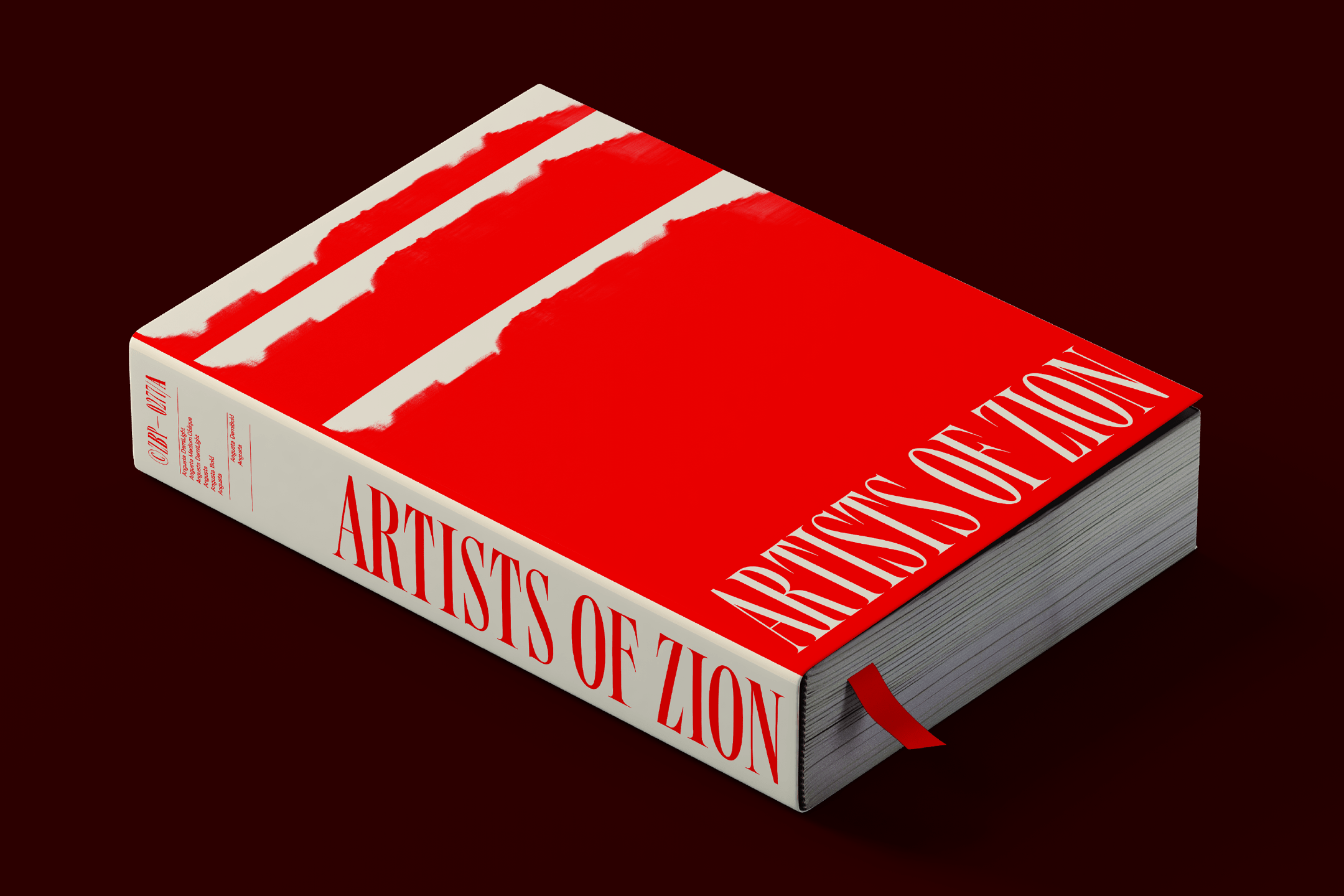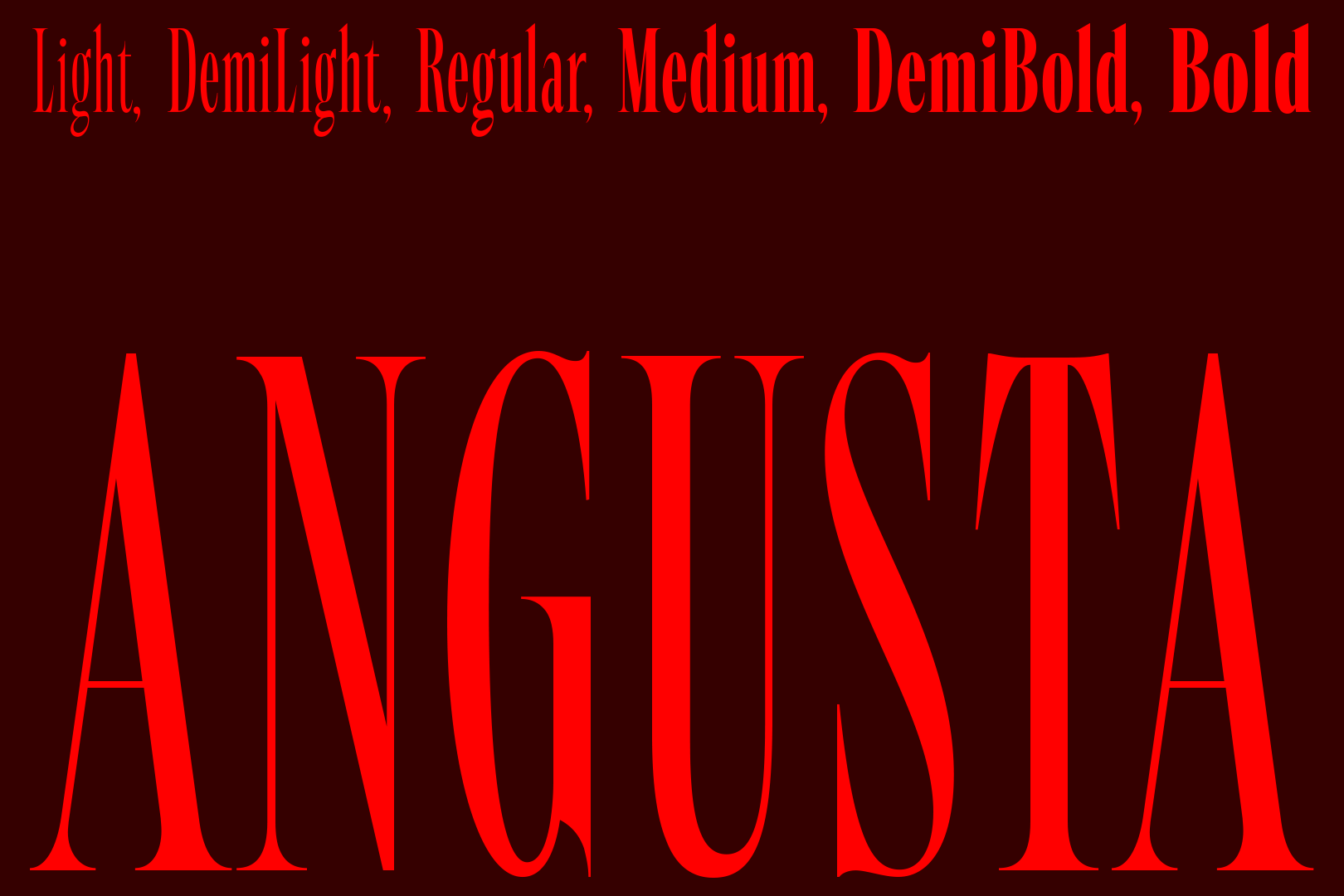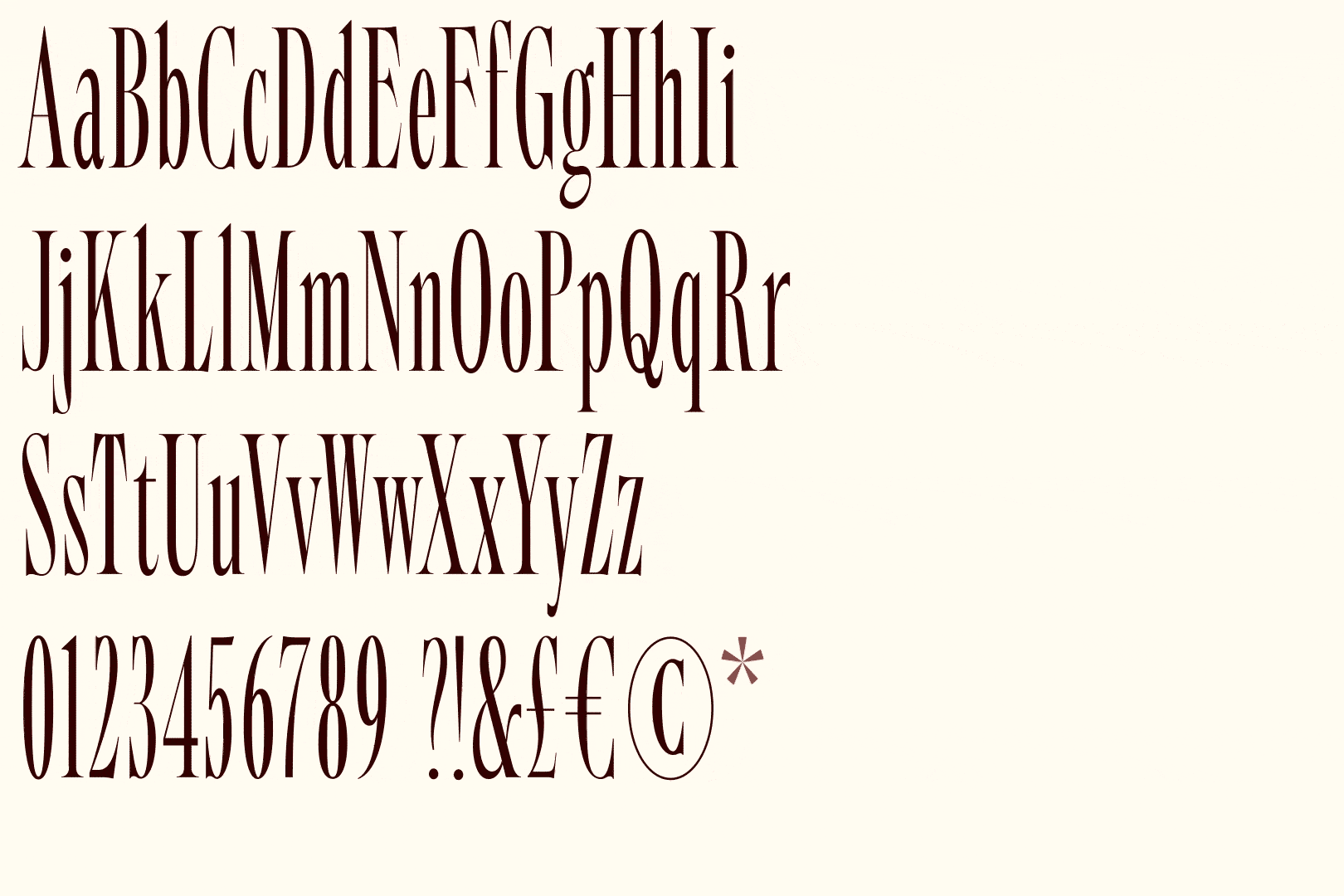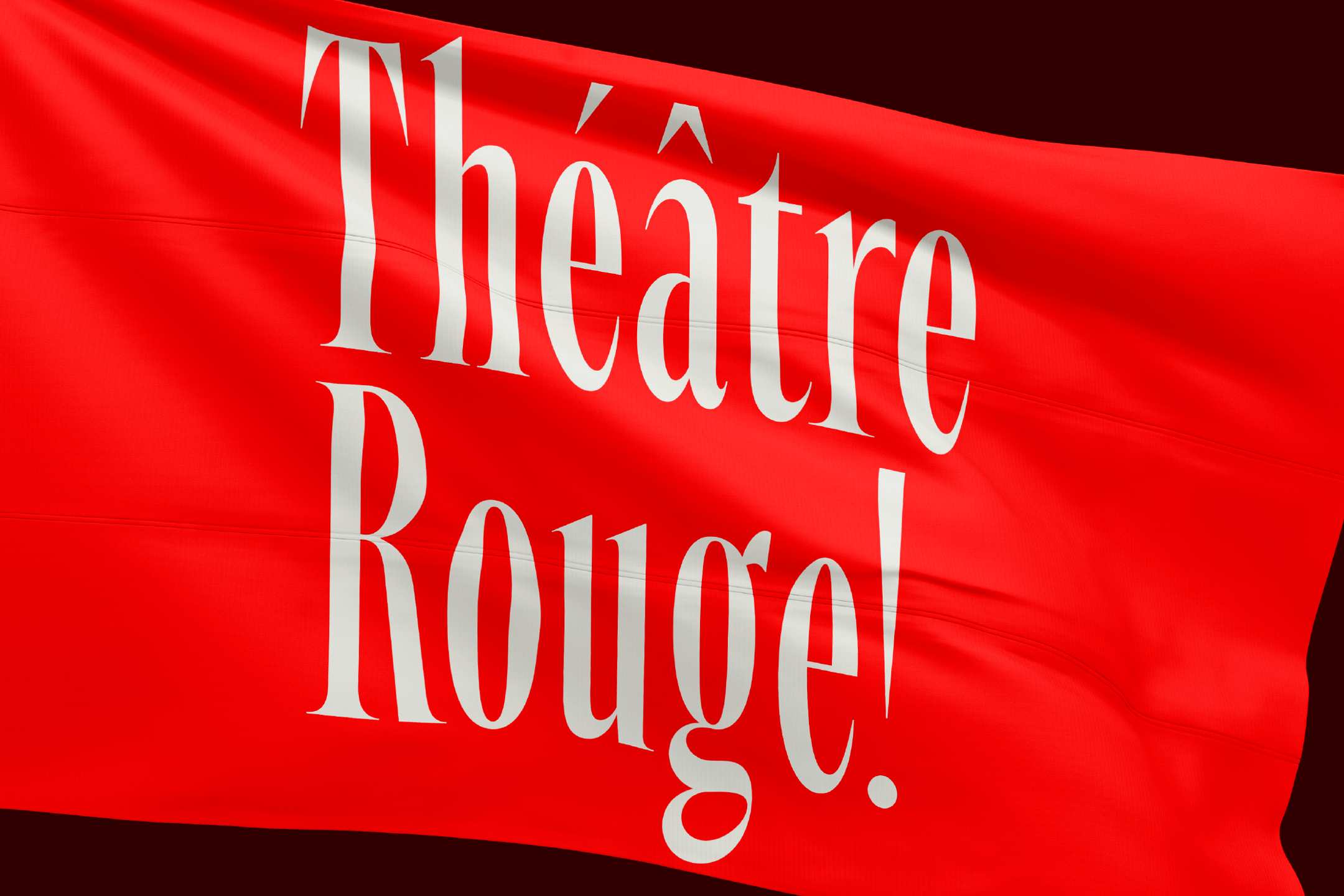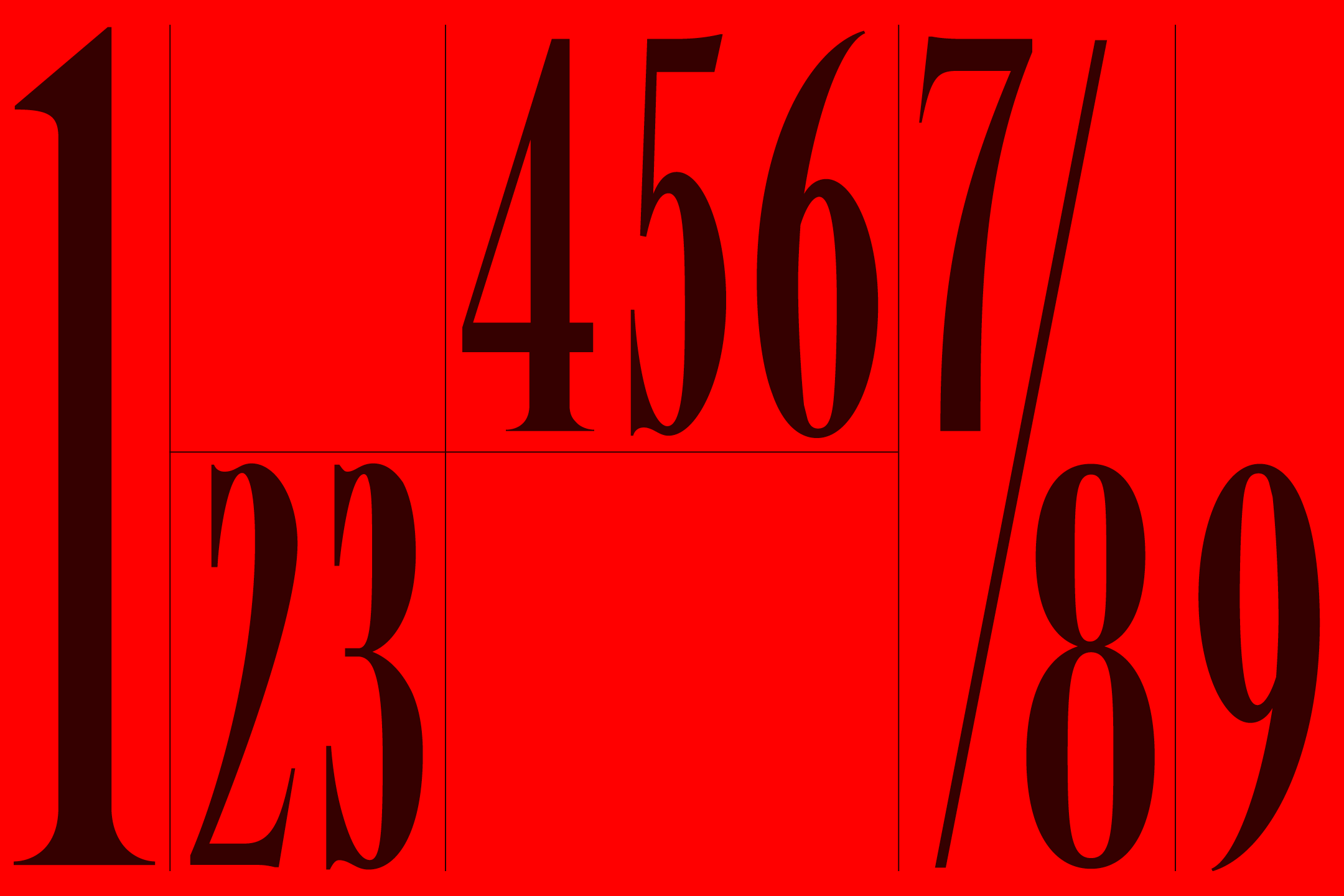
Angusta is a highly versatile and elegant display serif type family that draws inspiration from American wood type of the 19th century. The font features an extra-condensed design with tightly spaced letterforms. High contrast between thick and thin strokes gives Angusta a bold, striking appearance that is perfect for headlines, titles, and other large-scale typography. Augusta’s sharp elongated serifs are detailed and elegant, giving it a refined and sophisticated look. The serifs also add a sense of movement to the letterforms, making them feel dynamic and alive.
Angusta has six weights with matching obliques and contains over 400 characters per style. OpenType features include inferiors, superiors, fractions, tabular and lining figures, and language support for Western, Southern, and Central Europe.
In 2023, Angusta received the ‘Award of Excellence’ at the Communication Arts Typography Competition.